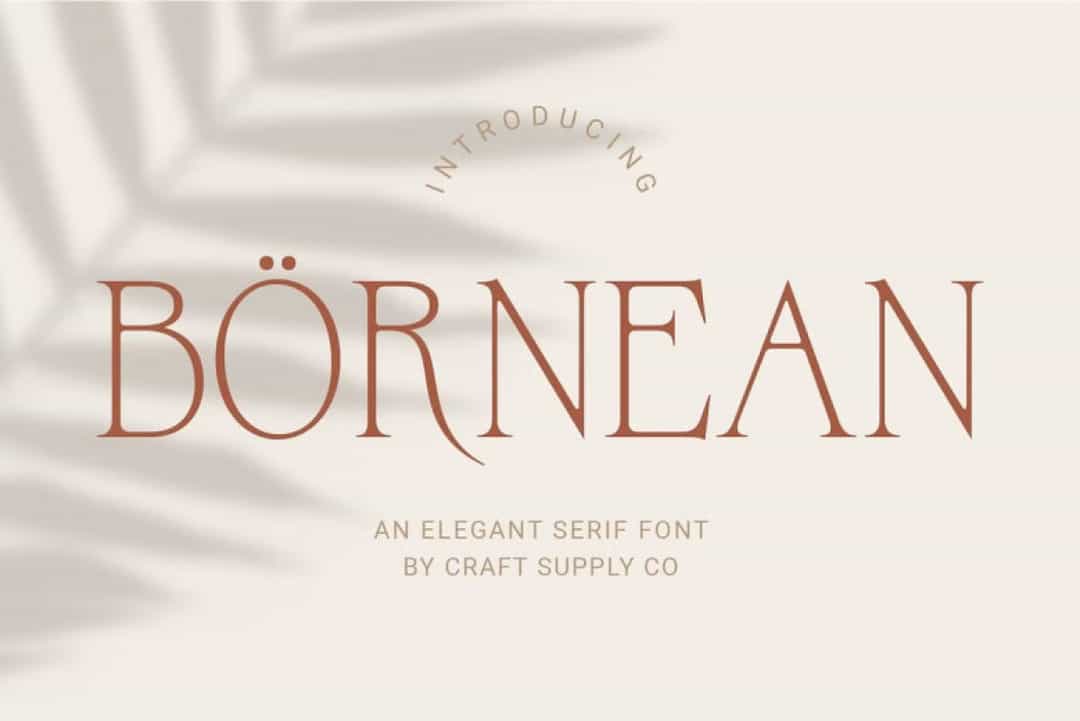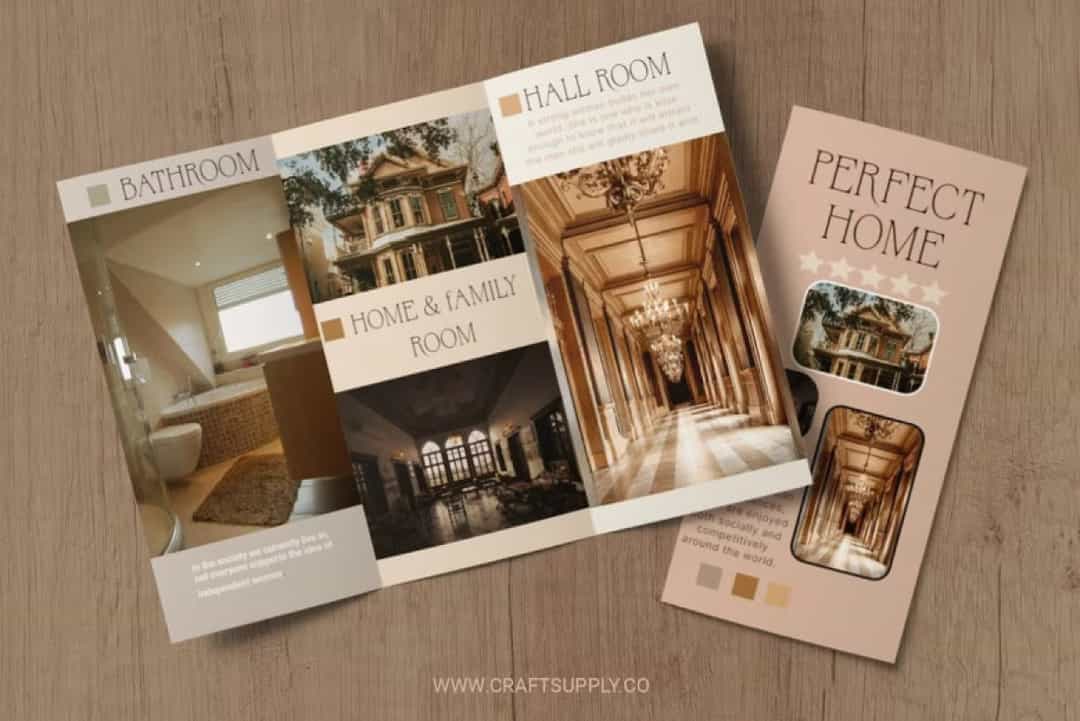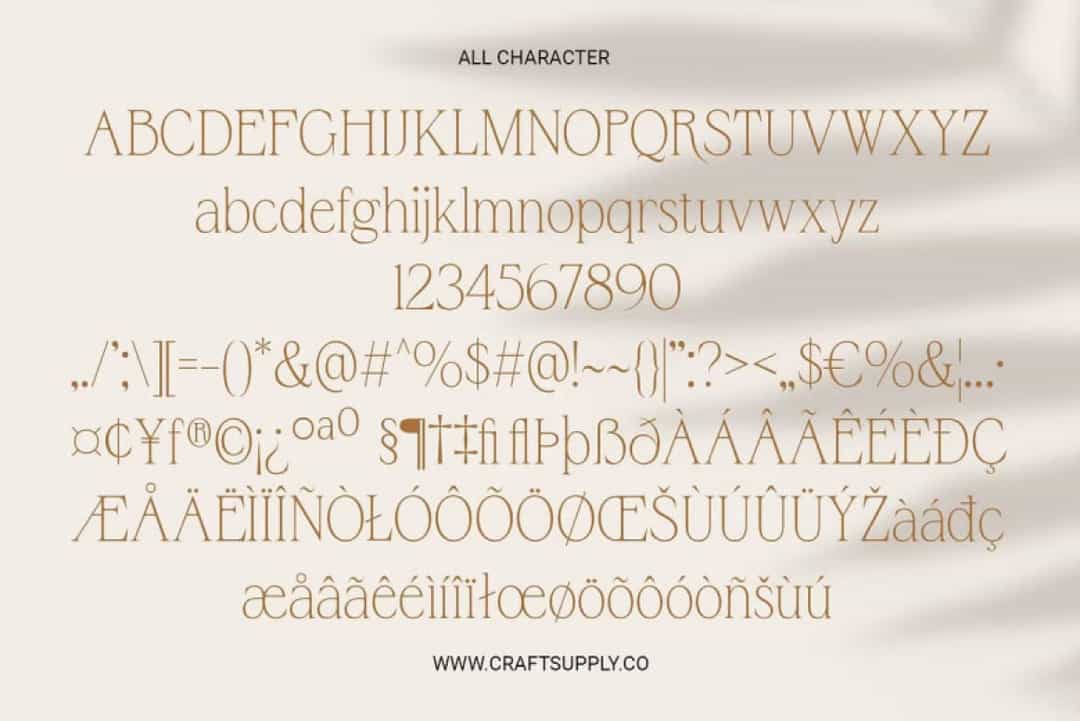
Elegance Meets Versatility. This font stands as a testament to elegant serif typography’s timeless appeal, providing fashion brands and beyond with visual identity enhancement through refined appearance and versatility.